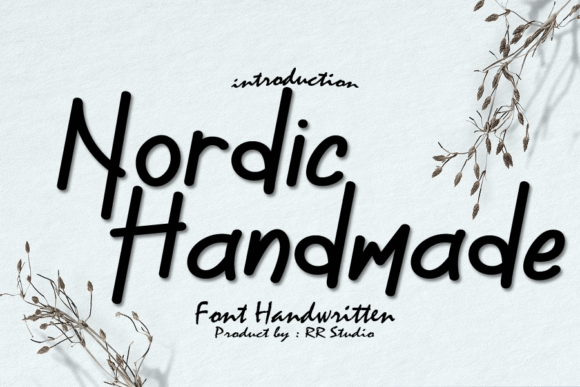
Nordic Handmade Font
About Nordic Handmade Font
“Nordic Handmade” is introduced as a sweet and cursive handwritten font, described as gentle and suitable for a variety of design ideas. This font is expected to add a joyful and romantic touch to projects, making it versatile for a range of creative endeavors.
The use of the term “cursive handwritten” implies that “Nordic Handmade” has a flowing and connected style, reminiscent of handwritten script. This quality often conveys a sense of warmth and personalization, making it suitable for projects where a human touch is desired.
The characterization of “Nordic Handmade” as a gentle font emphasizes its soft and approachable aesthetic. This quality can contribute to creating a warm and inviting atmosphere in design projects.
The mention of suitability for logotypes, headline fonts, corporate identity, brand identity, and various other design applications indicates that “Nordic Handmade” is versatile and adaptable to different contexts. Its cursive and romantic qualities may make it particularly well-suited for branding, where creating a memorable and emotional connection is often crucial.
The wide range of suggested applications, from the apparel industry to social media platforms like YouTube and Instagram, suggests that “Nordic Handmade” is designed to be a multi-purpose font suitable for diverse creative projects.
In conclusion, “Nordic Handmade” is presented as a versatile and expressive font with a sweet and cursive handwritten style. Its suitability for various design projects, from branding to online platforms, makes it a potentially valuable tool for designers seeking a font that combines a joyful and romantic touch with flexibility across different creative applications.